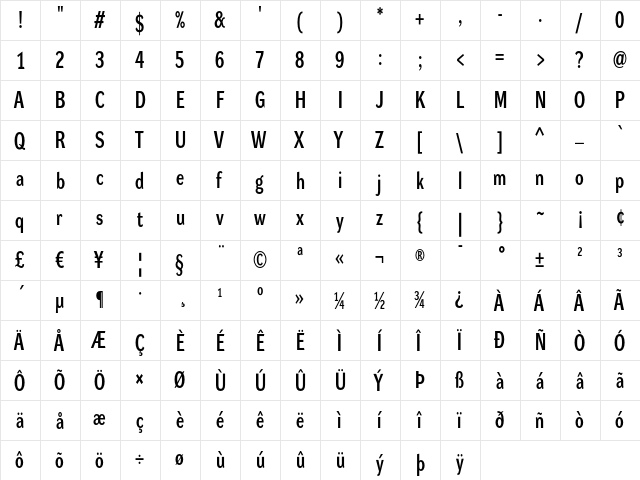
DynaGrotesk LC Bold Font Preview
DynaGrotesk LC Bold
DynaGrotesk LC Bold Font Details
| Foundry | Frantisek Storm, stormtype.com |
Design Context for DynaGrotesk LC Typeface
DynaGrotesk LC takes a clean, functional approach — its unadorned letterforms prioritise legibility and work reliably across screen and print environments. Its bold stroke weight gives it real presence on the page.
A strong choice for UI design, app interfaces, bold signage, and corporate brand systems.
Font Pairing: Use DynaGrotesk LC for headlines alongside a lighter-weight sans or serif for body copy to establish clear visual hierarchy.
Pro Tip: Pair DynaGrotesk LC with a display or serif font for headlines — its neutral character makes it an excellent supporting player in complex typographic systems.